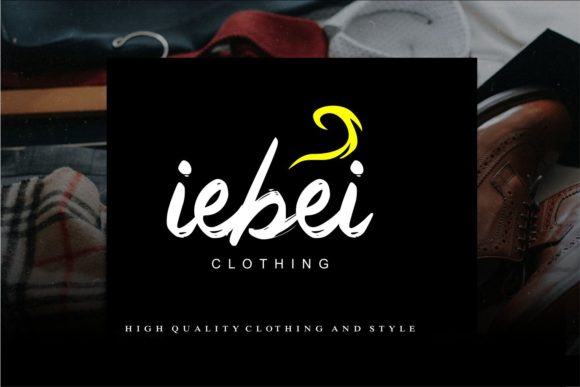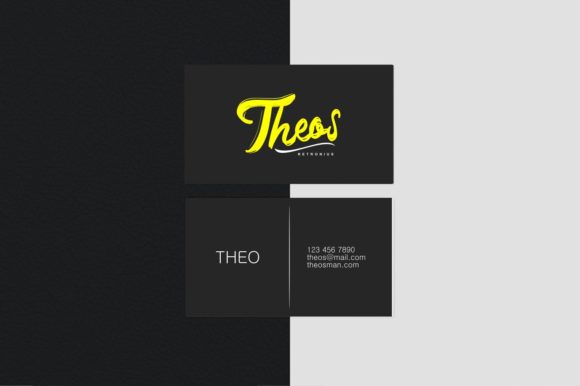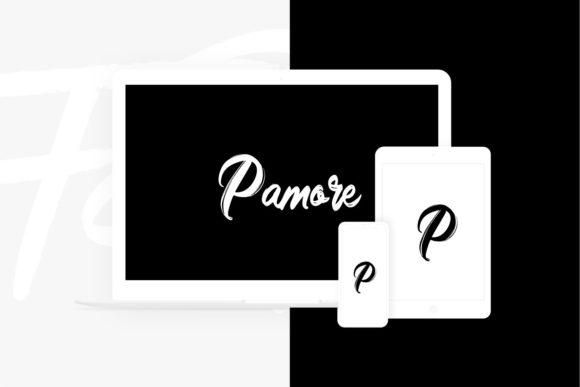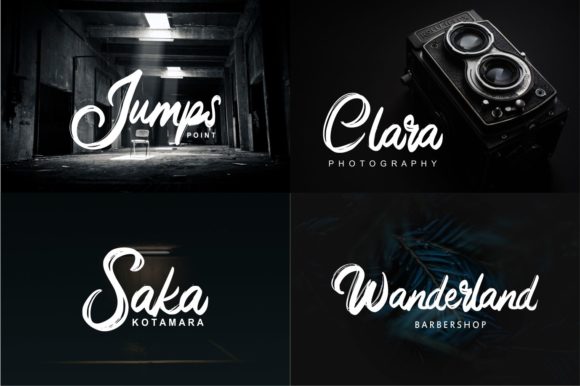
Introducing Arsa Font: The Ultimate Brush Script for Adding an Authentic Vibe to Your Designs
Are you tired of using the same old fonts in your design projects? Do you want to add a touch of personality and uniqueness to your work? Look no further than Arsa Font, a fun and bold brush script that’s perfect for designers and crafters looking to add an authentic and raw vibe to their creations.
What is Arsa Font?
Arsa Font is a carefully crafted brush script that’s designed to bring a sense of fun and playfulness to your designs. With its bold and expressive strokes, Arsa is the perfect font for adding a personal touch to your work. Whether you’re designing a logo, creating a social media graphic, or crafting a handmade project, Arsa Font is the ideal choice for anyone looking to add a unique and authentic vibe to their creations.
Key Features of Arsa Font
So, what makes Arsa Font so special? Here are just a few of its key features:
- Fun and bold brush script: Arsa Font features bold and expressive strokes that are perfect for adding a touch of personality to your designs.
- Cool twist: Arsa Font has a unique and quirky twist that sets it apart from other brush scripts.
- Authentic and raw vibe: Arsa Font is designed to bring an authentic and raw vibe to your designs, making it perfect for crafters and makers.
- Easy to read: Despite its bold and expressive strokes, Arsa Font is surprisingly easy to read, making it perfect for use in a variety of design projects.
Arsa Font is the perfect choice for designers and crafters who want to add a personal touch to their work. Whether you’re creating a logo, designing a social media graphic, or crafting a handmade project, Arsa Font is the ideal choice. Its unique and quirky style makes it perfect for:
- Handmade projects: Arsa Font is perfect for crafters who want to add a personal touch to their handmade projects, such as knitting patterns, sewing projects, or handmade cards.
- Social media graphics: Arsa Font is perfect for creating eye-catching social media graphics that will help you stand out from the crowd.
- Logos and branding: Arsa Font is a great choice for logos and branding projects, especially for businesses that want to convey a fun and playful vibe.
How to Use Arsa Font in Your Designs
Using Arsa Font in your designs is easy. Here are a few tips to get you started:
- Pair it with a neutral font: Arsa Font is bold and expressive, so it’s best paired with a neutral font that will help to balance it out.
- Use it in headlines: Arsa Font is perfect for use in headlines, where its bold and expressive strokes can really make an impact.
- Experiment with colors: Arsa Font looks great in a variety of colors, so don’t be afraid to experiment and find the perfect color to match your brand.
Arsa Font is a fun and bold brush script that’s perfect for designers and crafters looking to add an authentic and raw vibe to their creations. With its unique and quirky style, Arsa Font is the ideal choice for anyone looking to add a personal touch to their work. So why not give it a try and see how it can elevate your designs to the next level?
Whether you’re a seasoned designer or a crafty crafter, Arsa Font is a must-have addition to your font collection. So go ahead, get creative, and see what amazing things you can create with Arsa Font!